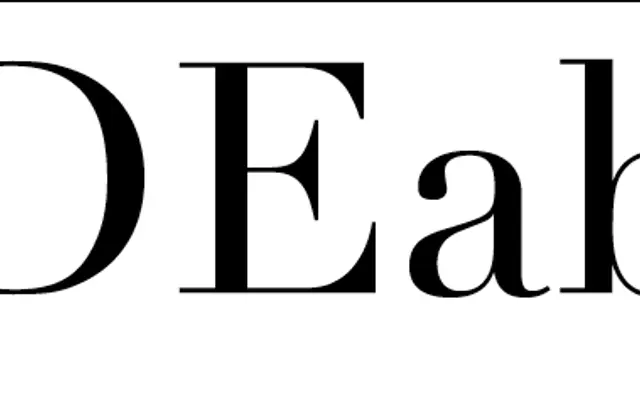
A stencil family that fuses neoclassical high-contrast proportions with early twentieth-century geometric construction, dissolving hairline strokes into open segments.
Cut and Cut Square each come in Light, Regular and Bold weights, available in OpenType and web font formats. The design draws on two historically distant sources: the extreme vertical stroke contrast of late eighteenth and early nineteenth-century neoclassical types, and the modular geometric construction methods of early twentieth-century experimental alphabets. By dissolving hairline cross-strokes into open spaces, the letterforms are broken into discrete segments that retain legibility whilst exposing their rational, reductive structure.
Cut is a stencil display family that splices neoclassical high-contrast proportions with early twentieth-century geometric construction methods, dissolving hairline cross-strokes into open gaps to produce segmented letterforms.